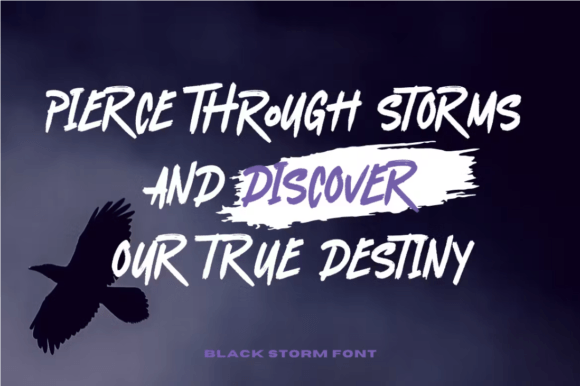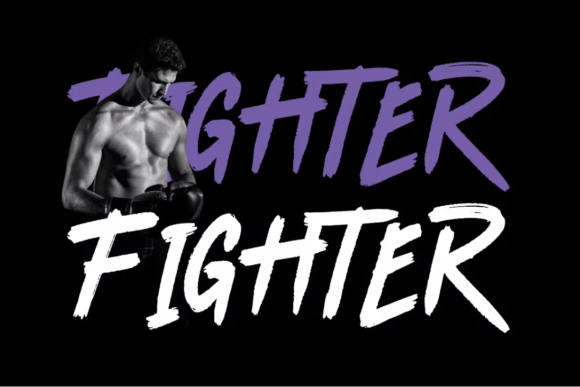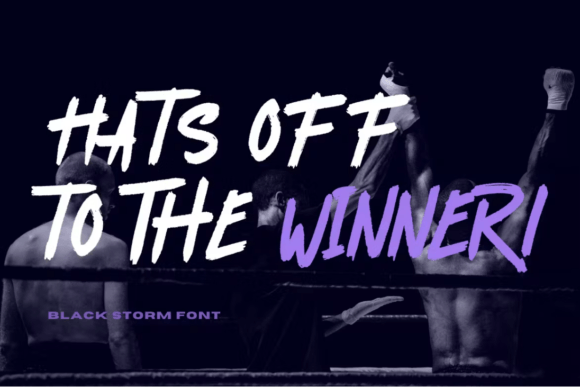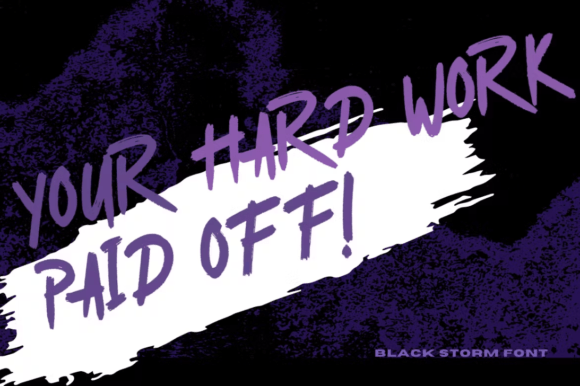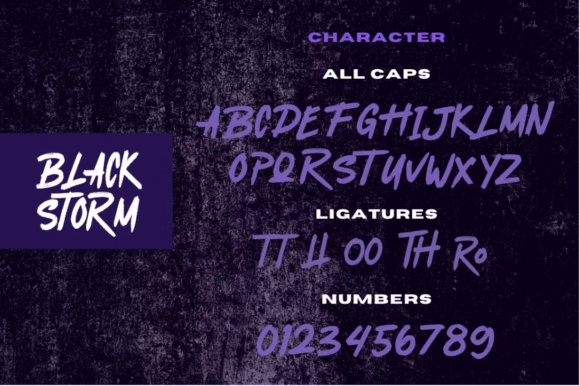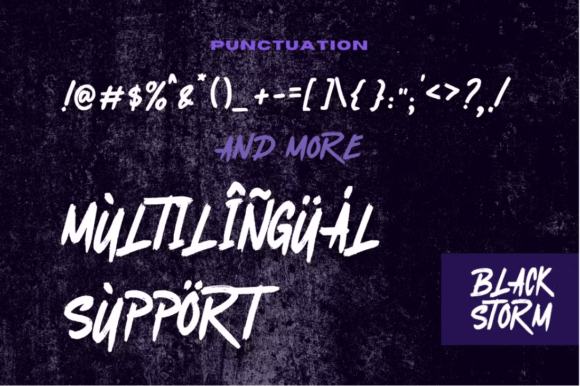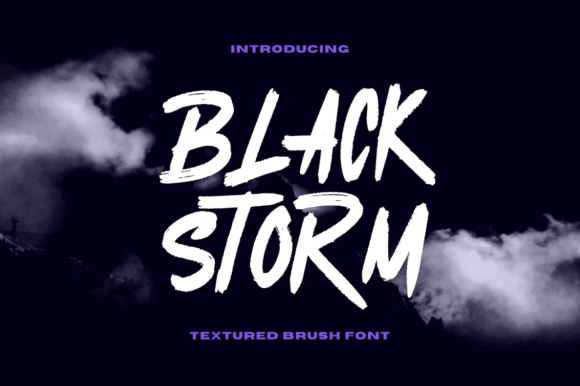
Unleash the Power of Black Storm Font: A Bold and Assertive Typeface for Your Design Projects
In the world of typography, fonts play a crucial role in conveying the tone and personality of a design project. When it comes to creating a strong and assertive look, few fonts can match the impact of Black Storm. This natural textured brush font is perfect for designers and crafters looking to add a bold and masculine touch to their work. In this article, we’ll explore the features and benefits of Black Storm, and why it’s an excellent choice for your next design project.
The Essence of Masculinity: Strong Lines and Bold Strokes
Black Storm font is designed to capture the essence of masculinity with its strong lines and bold strokes. The font’s rugged and textured feel gives it a unique character that’s sure to grab attention. The bold strokes and sharp lines create a sense of confidence and assertiveness, making it ideal for posters, logos, and ads targeted toward a male audience. Whether you’re designing a sports-themed project, a rugged outdoor brand, or a bold fashion statement, Black Storm is the perfect choice.
Versatility and Flexibility: Suitable for Various Design Styles
One of the key benefits of Black Storm font is its versatility and flexibility. The font can be used in a variety of design styles, from modern and edgy to vintage and distressed. Its textured feel adds depth and character to any project, making it suitable for a wide range of applications. Whether you’re creating a logo, a poster, or a social media graphic, Black Storm can be used to add a bold and impactful statement that’s sure to catch the eye of any viewer.
Natural Textured Brush Font: Adding Depth and Character to Your Design
Black Storm font is a natural textured brush font that mimics the look and feel of hand-painted brushstrokes. The font’s textured feel adds a layer of depth and character to any project, giving it a unique and organic look. The natural texture of the font also helps to create a sense of authenticity and ruggedness, making it perfect for designs that require a strong and assertive look.
Perfect for Designers and Crafters: Easy to Use and Customize
Why Choose Black Storm Font for Your Design Project?
So why choose Black Storm font for your design project? Here are just a few reasons:
• Strong and assertive look: Black Storm font is designed to create a bold and impactful statement that’s sure to grab attention.
• Versatility and flexibility: The font can be used in a variety of design styles and applications.
• Natural textured brush font: The font’s textured feel adds depth and character to any project.
In conclusion, Black Storm font is a bold and assertive typeface that’s perfect for designers and crafters looking to add a strong and masculine touch to their work. Its natural textured brush font, strong lines, and bold strokes make it ideal for posters, logos, and ads targeted toward a male audience. Its versatility and flexibility make it suitable for various design styles, and its textured feel adds depth and character to any project. Whether you’re a seasoned designer or a crafty DIY enthusiast, Black Storm font is an excellent choice for your next design project.